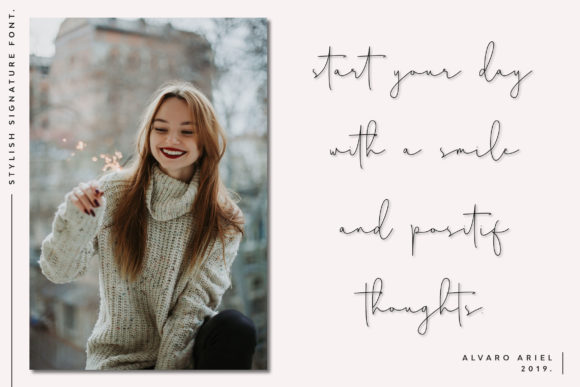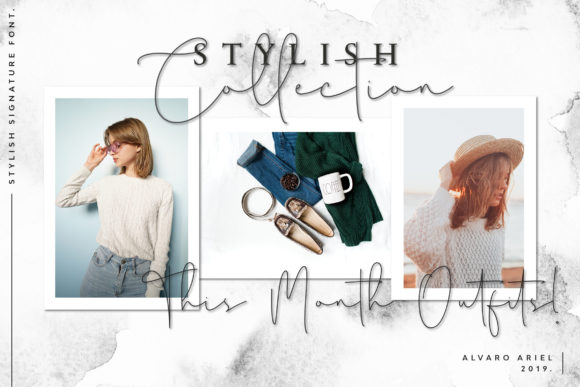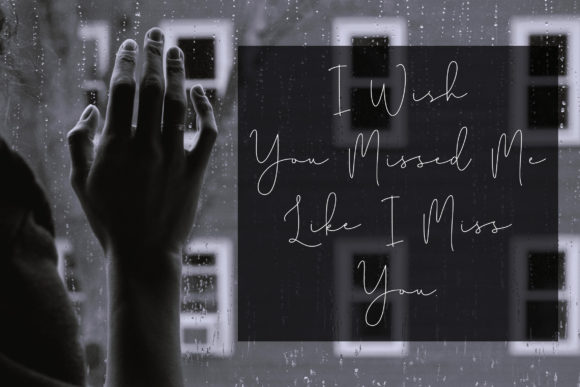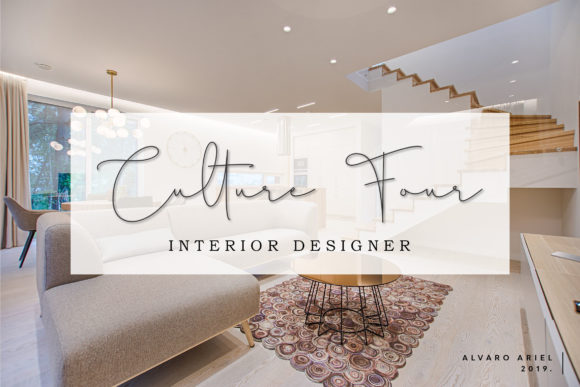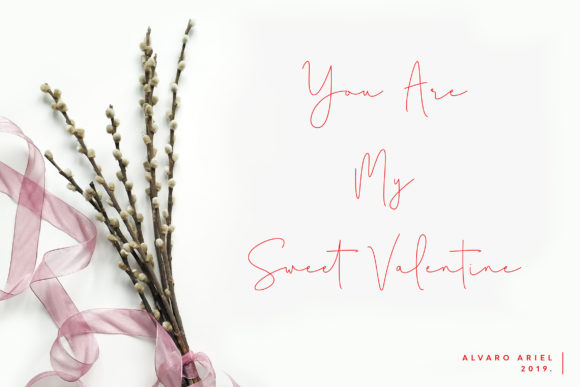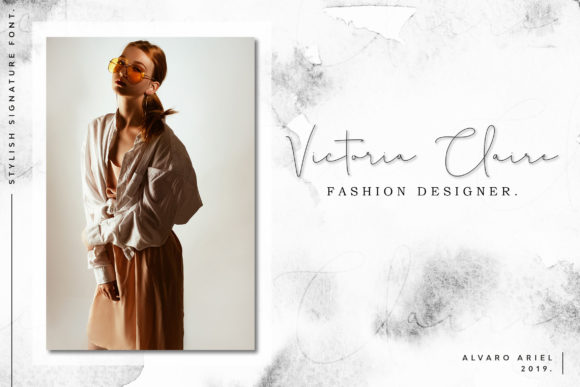
Introduction to Dark Saturday Font
Do you ever find yourself stuck in a creative rut, staring at a blank page or screen, wondering how to bring your vision to life? For many designers, this moment of uncertainty is a familiar feeling. But what if you had the perfect tool to spark your imagination and elevate your creative project?
Enter the Dark Saturday Font, a stunning script that exudes elegance and sophistication. With its unique style and high-quality design, this font is a valuable resource for designers seeking to add a touch of sophistication to their work. Whether you’re working on a personal project or a commercial design, the Dark Saturday Font is sure to impress.
One of the standout features of the Dark Saturday Font is its versatility. With a transparent background, you can easily layer it over other design elements, creating a seamless and cohesive look. And the best part? This beautiful font is available for free download, making it an accessible design resource for designers of all levels.
Key Features of Dark Saturday Font
- Unique, hand-drawn design with a dark, mysterious aesthetic, perfect for creative projects that require a touch of elegance.
- Includes a transparent background, allowing designers to easily place the font over any image or background without any visual clutter.
- Designed at a high resolution (300 DPI) to ensure crisp, clear text even at large sizes.
- Features a large character set, including uppercase and lowercase letters, numbers, and punctuation marks, making it a versatile font for a wide range of creative projects.
Honest Review: Dark Saturday Font
As a designer, I was excited to dive into the Dark Saturday Font, a free download that promised to elevate my creative projects. After putting it to the test, I’m here to give you the lowdown on what works and what doesn’t.
- High-quality typography: The font has a sleek, modern feel that’s perfect for a variety of design projects.
- Customizable: With a transparent background option, I was able to easily integrate the font into my designs without any distractions.
- Limited style options: While the font itself is great, I would have loved to see more style options or variations to mix things up.
- Not ideal for busy backgrounds: Due to its transparent background, the font can get lost on busy or distracting backgrounds.
Overall, the Dark Saturday Font is a solid addition to any designer’s toolkit. While it may not be perfect, its high-quality typography and customizable options make it a great choice for a variety of creative projects. If you’re looking for a reliable design resource, this font is definitely worth checking out.
The Dark Saturday Font is commonly used for creating designs for creative projects, such as posters, flyers, and brochures. It is also used for designing digital products, such as mobile apps and websites. Additionally, it can be used for creating presentations and documents that require a unique and creative touch.
To get the most out of the Dark Saturday Font, use it in combination with other design elements, such as images and graphics. Experiment with different font sizes and colors to create a unique look. Also, use the font’s transparent background to create a sense of depth and layering in your design.
Q: Does the Dark Saturday Font have a transparent background, and how can I use it?
Yes, the Dark Saturday Font has a transparent background, making it perfect for creative projects that require a high level of design flexibility. To use the font with a transparent background, simply place it on a design layer with a transparent background, and adjust the font settings as needed. This will allow you to achieve a seamless and professional design look.